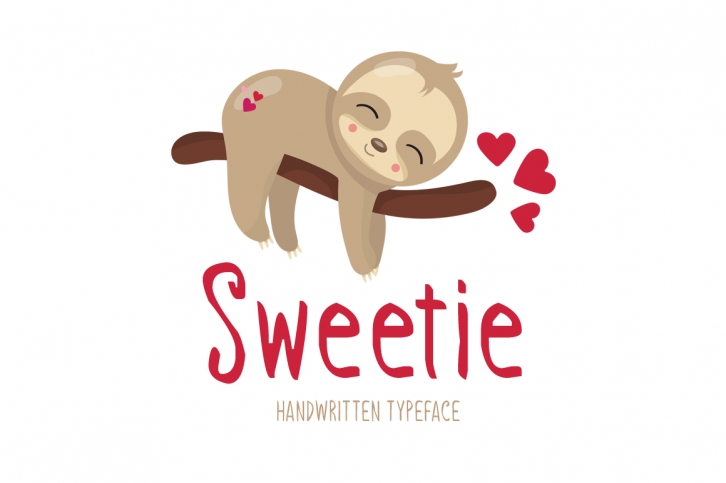
Sweetie is a gorgeous font that was realeased on January 7, 2020. The font can be used in many style contexts and design environments. Perfect for invitations, magazines, websites, logos, and more! It was designed by Seemly Fonts and the file size is 2.80 MB. Thanks for checking out this font!